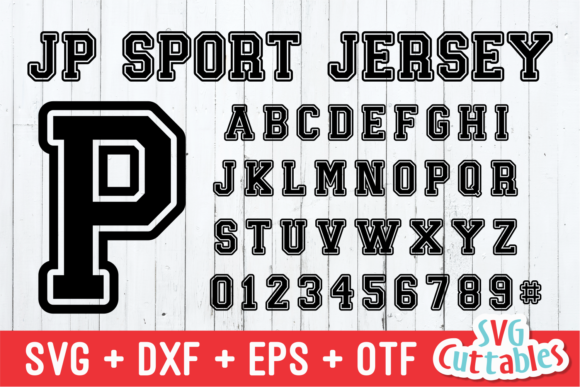
Are you looking for a font that stands out from the crowd? Look no further than JP Sport Jersey! This fun and bold slab serif font is perfect for adding a touch of personality to your next project. Created by SVG Cuttables, JP Sport Jersey is a unique addition to any font collection.
With its thick, blocky lettering and playful design, JP Sport Jersey is the perfect choice for sports-themed designs, digital art, crafts, presentations, and more. Its eye-catching style is sure to draw attention and make a statement.
But JP Sport Jersey isn't just about looks - it's also incredibly versatile. This font is perfect for a wide range of projects, whether you're designing posters, making greeting cards, or creating digital content. Its bold, easy-to-read lettering is ideal for any occasion, from casual to professional.